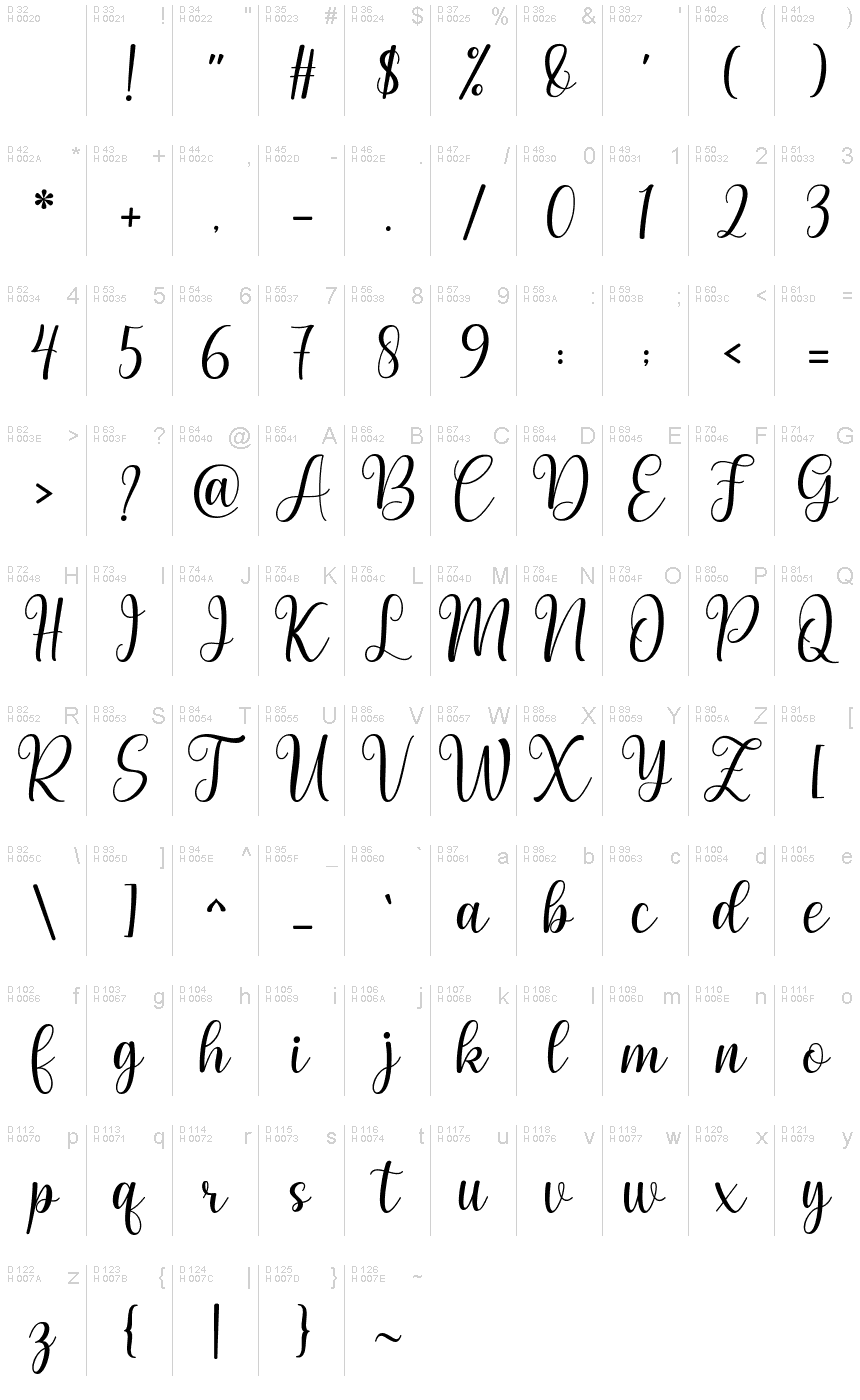
MaudyLove
Maudy Love, designed by Cut Story, is a mesmerizing calligraphy font that exudes elegance and romance. With its semi-light weight, this font adds a delicate touch to any project. Perfect for wedding invitations, greeting cards, or feminine branding materials, Maudy Love elevates your designs with its graceful curves and flowing strokes. Whether you're planning a fairytale-inspired event or creating a captivating logo for a beauty brand, this font will captivate your audience with its charm and sophistication. Let Maudy Love be the enchanting centerpiece of your next design endeavor.